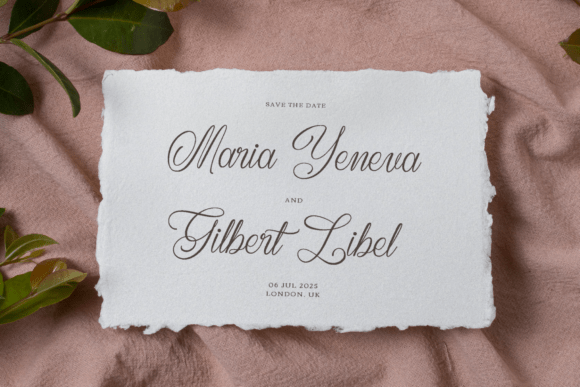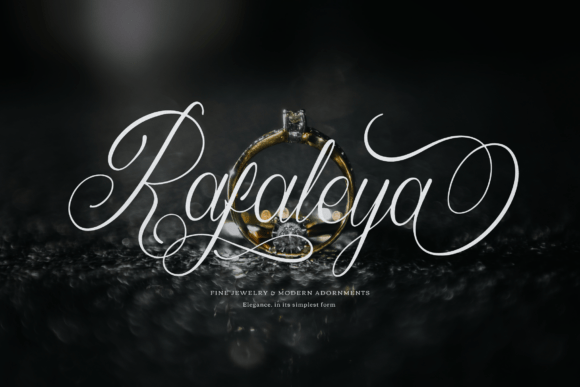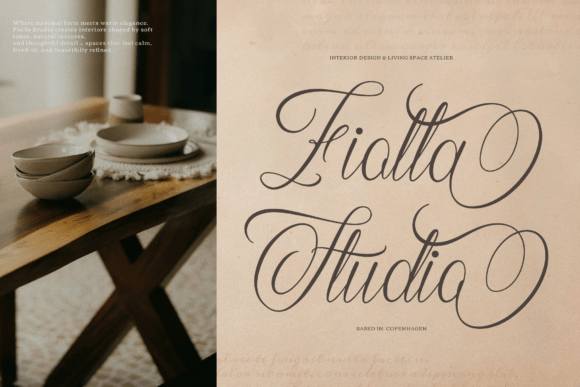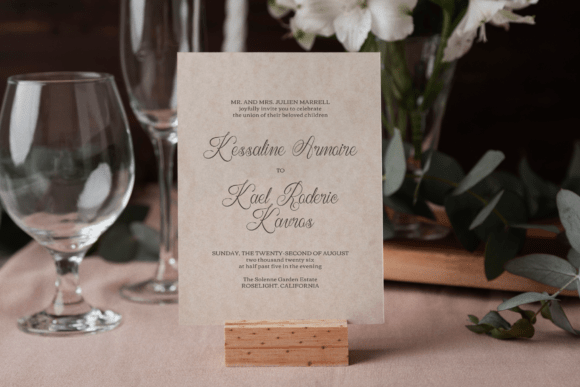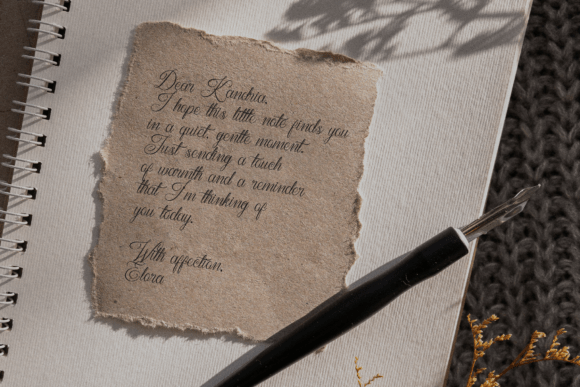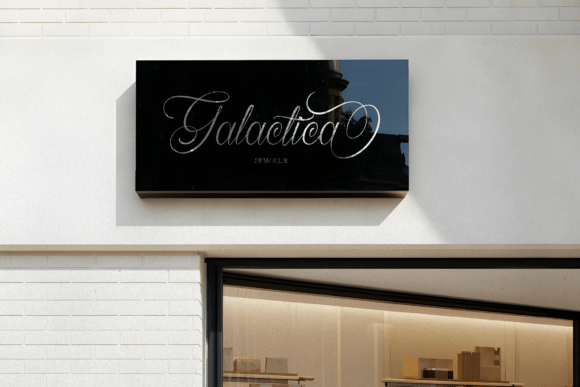
The Art of Elegant Expression: Unveiling the Kaletero Font
Have you ever found yourself stuck in a creative rut, staring at a blank page or screen, desperate for inspiration to strike? That’s where the magic of the Kaletero Font comes in – a beautiful calligraphy script font designed to add a touch of elegance and sophistication to any project. Whether you’re a seasoned designer or a creative enthusiast, this versatile font is sure to spark your imagination and bring your ideas to life.
Developed with a wide range of applications in mind, the Kaletero Font is perfect for logos, branding projects, homeware designs, product packaging, and so much more. Its fluid, handwritten style lends itself beautifully to quotes, posters, shopping bags, t-shirts, and book covers, making it an invaluable addition to any designer’s toolkit.
Kaletero Font Key Features
- Font Family: Kaletero is a unique and elegant script font designed for various typography needs.
- Size and Resolution: Kaletero is designed to work at various font sizes, from 12 to 48 points, and is optimized for high-resolution displays (up to 300 DPI).
- Unique Characteristics: This font features connected letters, swashes, and ligatures, making it ideal for creating elegant and sophisticated designs, such as wedding invitations, branding materials, and editorial content.
- Font Weight and Style: Available in regular and bold weights, allowing designers to create contrast and visual interest in their designs.
- Language Support: Kaletero supports a wide range of languages, including English, Spanish, French, German, Italian, and many others, making it a versatile font for global designs.
Kaletero Font Review
I recently had the chance to work with the Kaletero font, and I must say it’s a unique and interesting choice. ✨ Here are some of the things that stood out to me:
- Beautiful, hand-drawn feel that adds a touch of whimsy to any design
- Excellent legibility, even at smaller font sizes
- A wide range of languages supported, making it a great choice for global brands
However, as with any font, there are some limitations to be aware of: ⚠️
- Limited font styles – only regular and italic are available
- Some characters may not be as stylized as others, which can affect consistency
- Not ideal for very large or very small text sizes
Overall, I’d say the Kaletero font is a great choice for designers who want to add a touch of personality to their work. While it may not be perfect, its unique feel and high-quality files make it a solid addition to any design library.
Tips for Getting the Most Out of Kaletero Font
Use Kaletero Font for titles, headings, and other text elements where you want to add a touch of elegance and sophistication.
Combine Kaletero Font with other fonts to create a unique and visually appealing design.
Experiment with different font sizes, colors, and styles to find the perfect balance for your design.
Kaletero Font is ideal for:
Brand identity and logo design
High-end marketing materials and print ads
Any